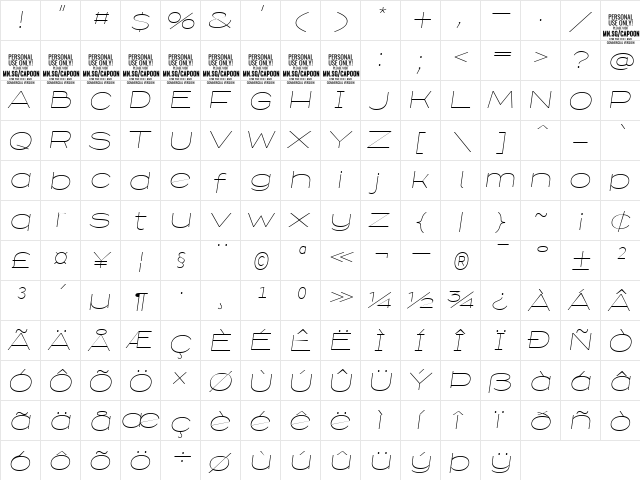
Capoon PERSONAL USE Thin Italic Font Preview
Design Context for Capoon PERSONAL USE Typeface
Capoon PERSONAL USE is a composed and adaptable typeface that performs quietly and consistently across a wide range of design contexts. The dynamic lean of this cut emphasises speed and emphasis in any layout. The delicate stroke weight brings airiness and refinement to layouts.